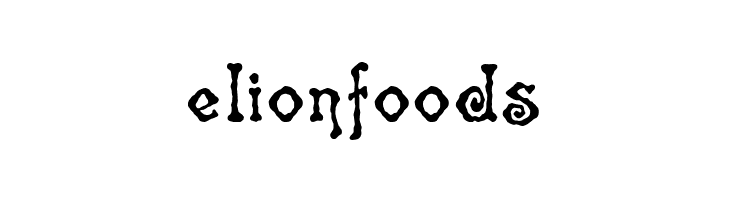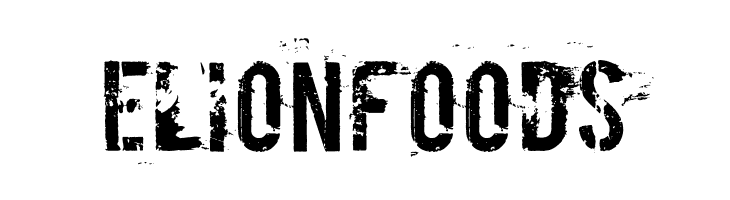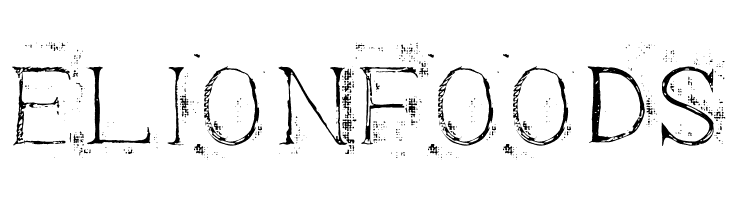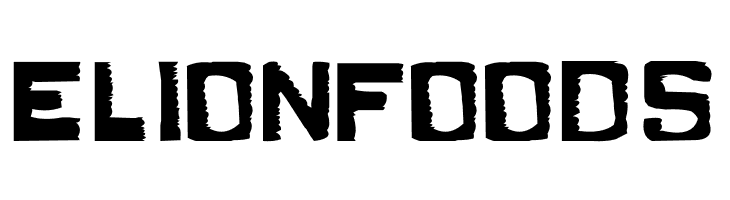
( Fonts by Sacred Nipple - Brode Vosloo )
A distressed, chaotic font with jagged, uneven strokes for an edgy look.
( Fonts by Ryoichi Tsunekawa - www.dharmatype.com )
A bold, distressed grunge font with a rugged, textured appearance.
A bold, distressed font with a gritty, punk-inspired aesthetic.
( Fonts by Ryoichi Tsunekawa - www.dharmatype.com )
A distressed serif font with a vintage, weathered appearance.
( Fonts by Christopher Hansen )
A grungy, distressed font with an uneven, chaotic style.
( Fonts by Michael Tension - www.TensionType.com )
A rustic, hand-crafted font with uneven strokes and an organic feel.